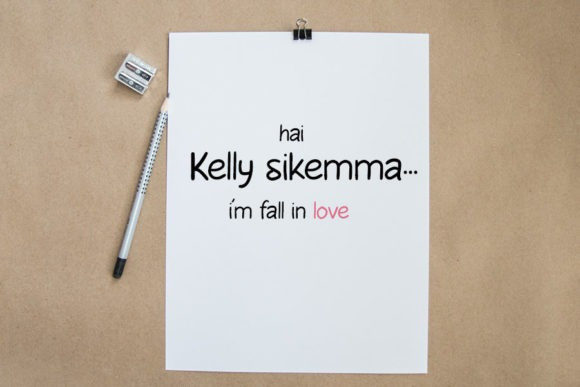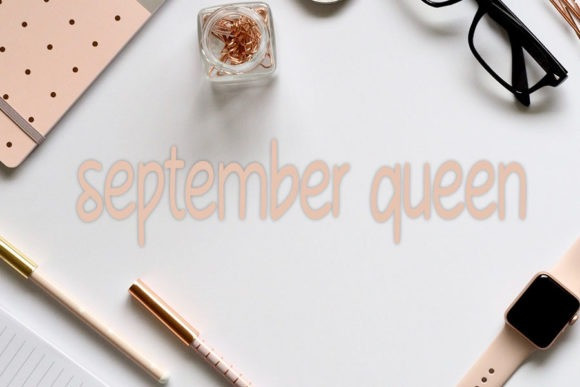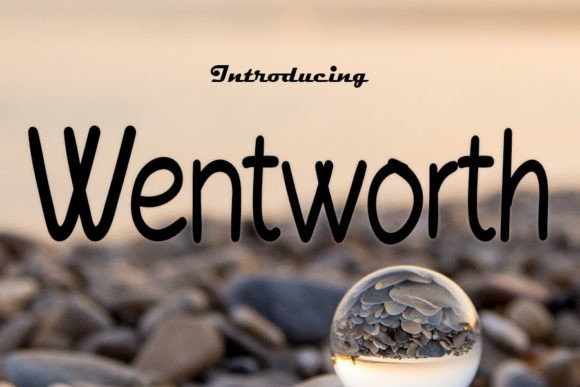
Wentworth Font
Wentworth Font is an elegant and dainty handwritten font that features sweet and delicate swashes. This original look will appeal to a wide range of crafty ideas, from letterheads and titles, to stationery.